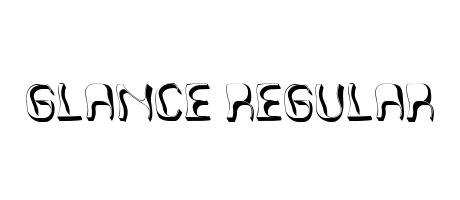
Glance
Glance Regular: A captivating display typeface, Glance Regular boasts a unique, slightly distorted aesthetic. Its characters possess a warped, almost melted quality, giving text a fluid, dynamic feel. The irregular outlines and subtle variations in thickness add an element of playful instability to the otherwise legible letterforms, making it perfect for titles or short, impactful statements. The overall effect is both modern and slightly unsettling.